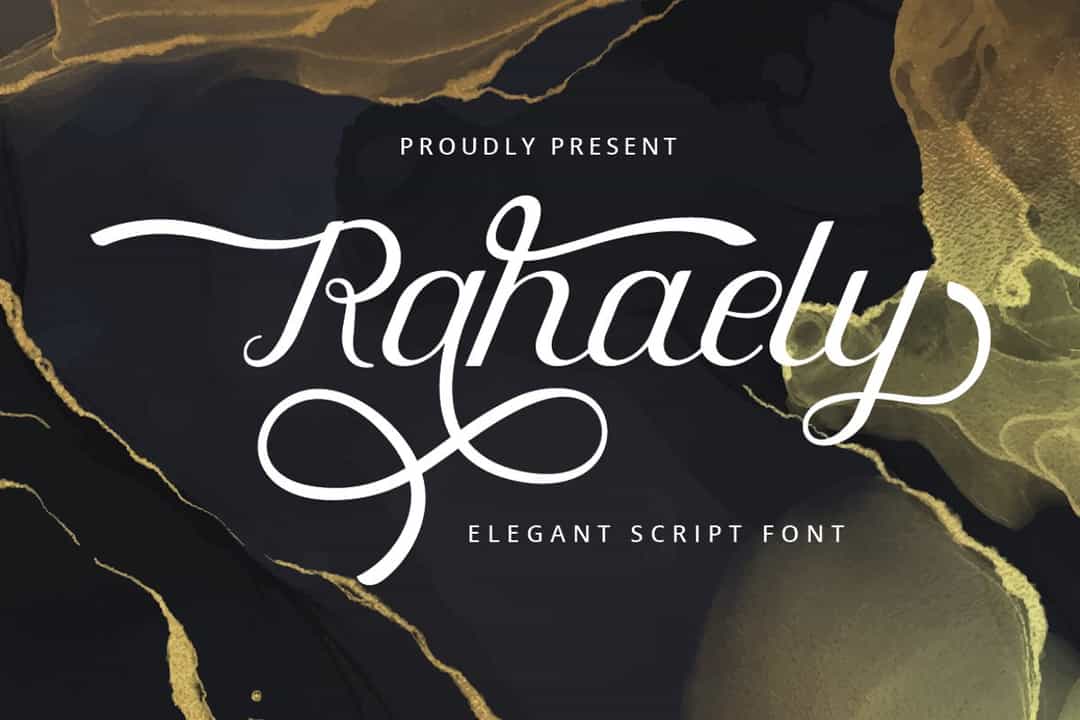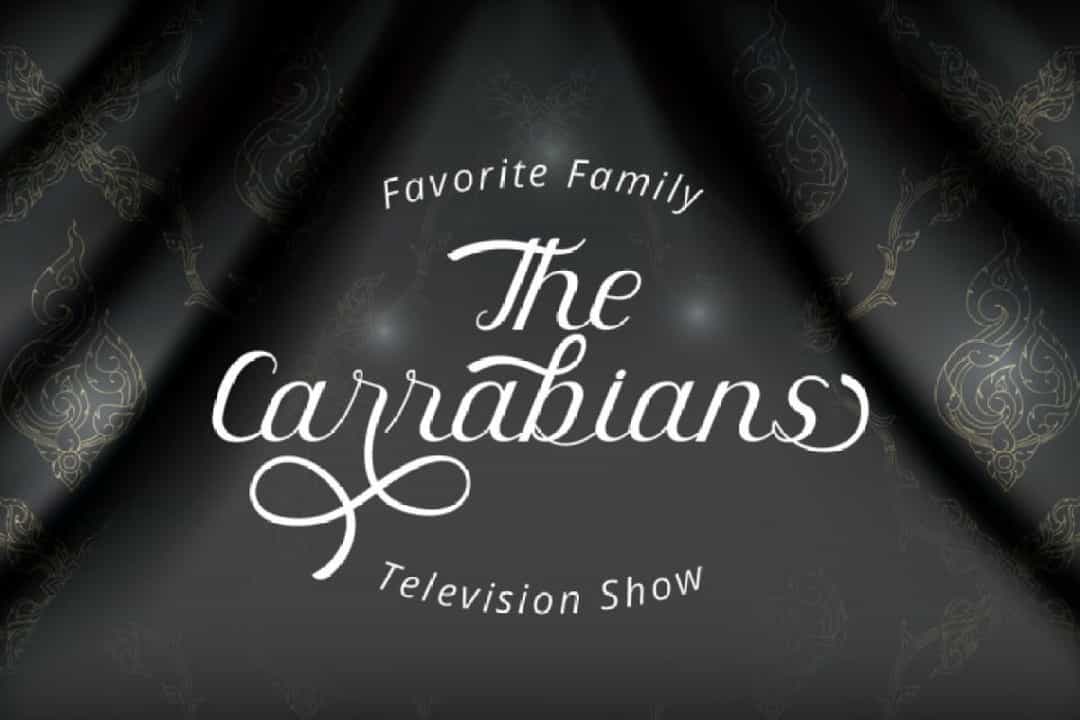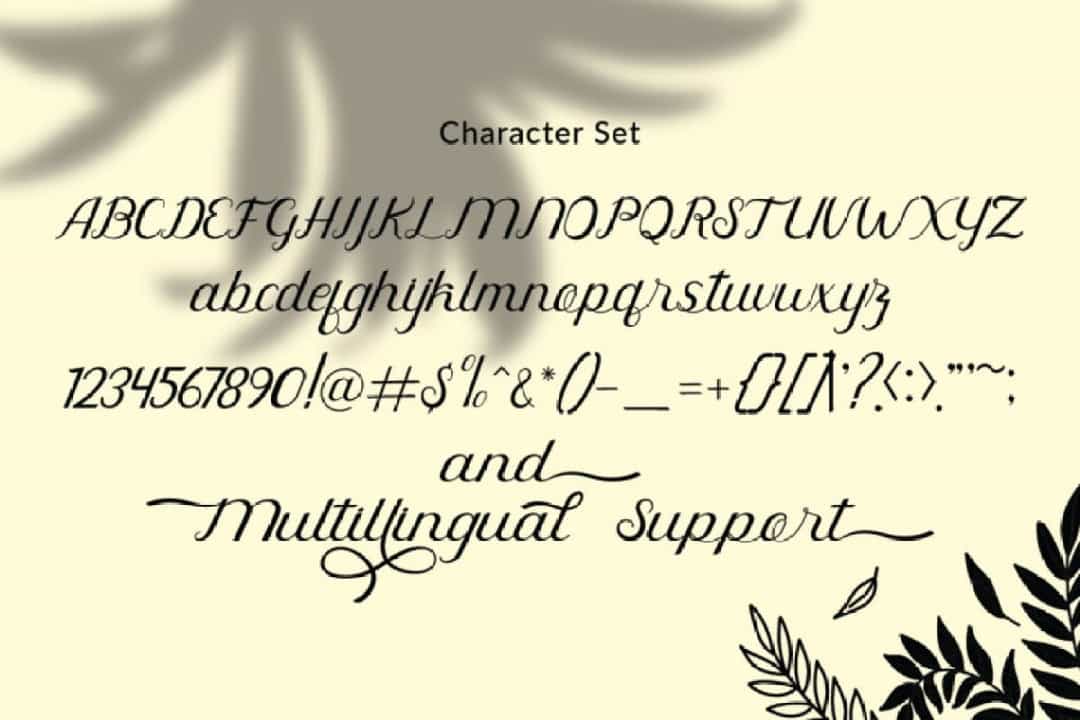
Rahaely can be described as a highly developed script font with a large selection of alternates which will be useful for logotypes, and lettering for wedding invitations, fashion projects, magazine covers, book covers, packaging, typography for cards, posters, branding, and other tasks.